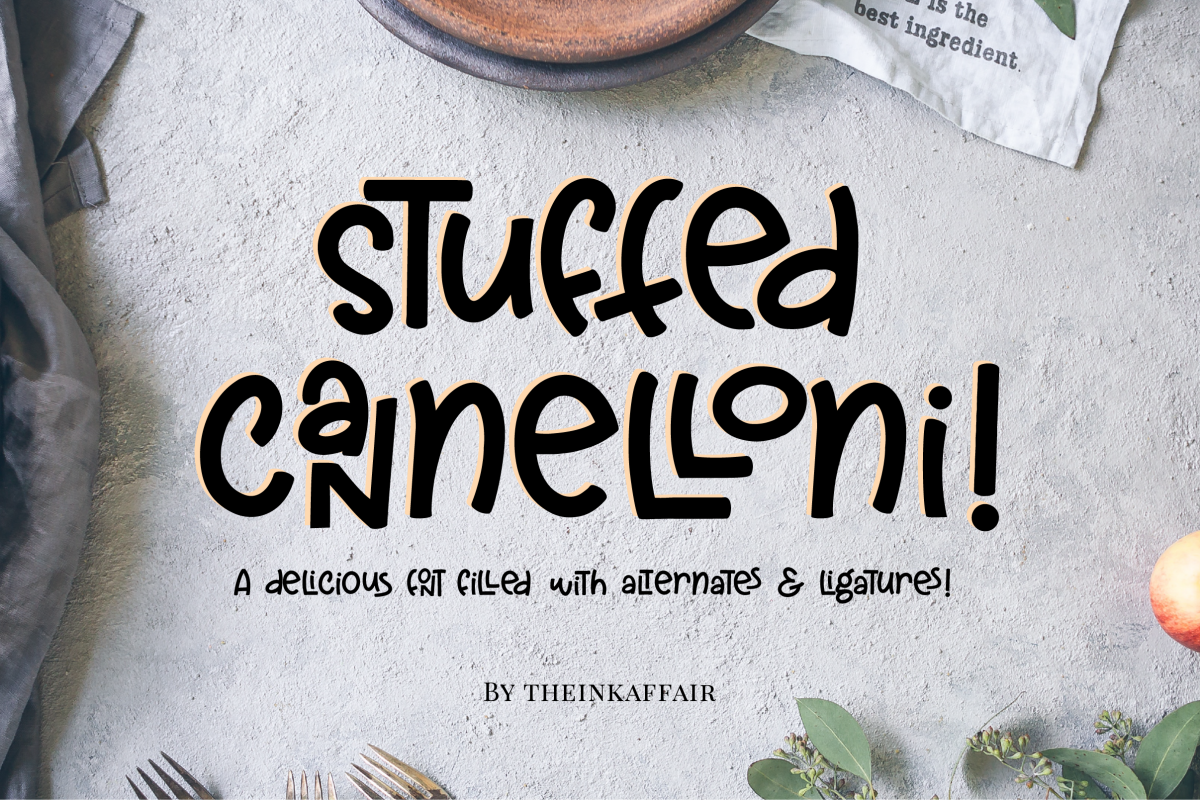
Stuffed Cannelloni - a deliciously fun font!
Introducing Stuffed Cannelloni, a super fun font filled with alternates and ligatures galore! Get some stuffed cannelloni and get cooking some delicious designs - goes perfectly with everything!
- Includes uppercase, lowercase alternates and over 60 ligatures!